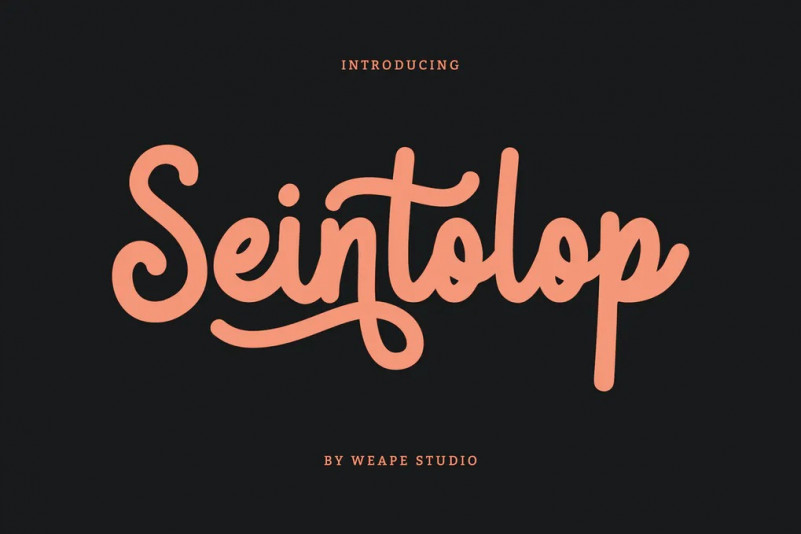
Seintolop Font
Introducing Seintolop, monoline font with natural handwritten style and the stroke of hand quickly.
Seintolop is perfect for signature, branding, logo, wedding, fashion, photography title, poster, social media, ad banner, book cover, packaging, handwritten quotes, greeting cards, and advertising